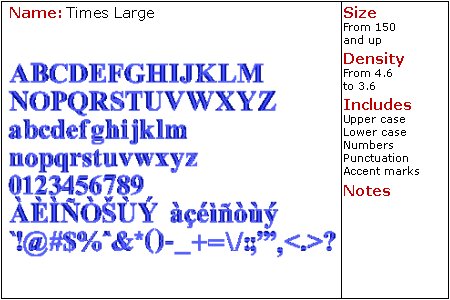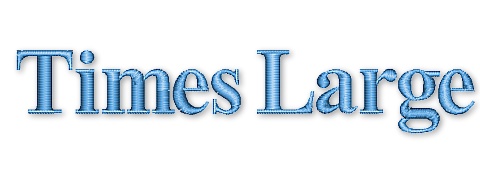
Times Large
Times Large is a versatile font for large lettering such as collegiate wear, jacket backs etc.. Combined with Auto Outline on levels that support this feature and really make your embroidery stand out.